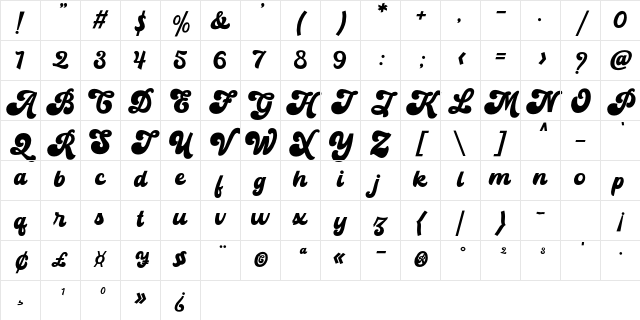
Mainstay Regular Free Font
Mainstay Regular
Foundry: ahweproject
Designer: ahweproject
Design Context for Mainstay
Mainstay is a composed and adaptable typeface that performs quietly and consistently across a wide range of design contexts.